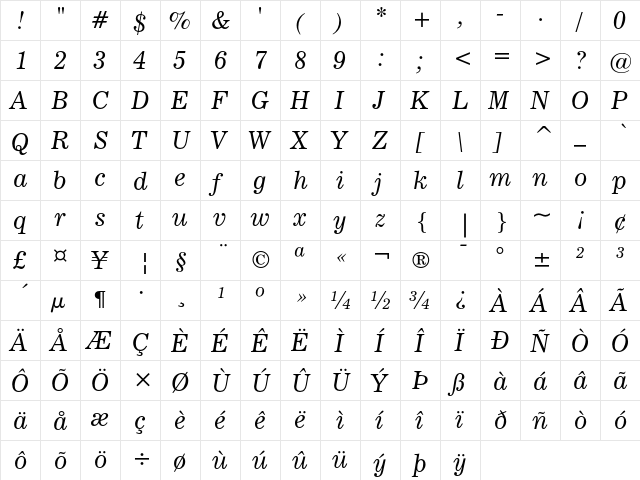
News 705 Italic
Design Context for News 705 Typeface
News 705 is a composed and adaptable typeface that performs quietly and consistently across a wide range of design contexts. The dynamic lean of this cut emphasises speed and emphasis in any layout.
Pro Tip: Try News 705 for annotation and caption copy alongside an upright companion — the contrast in angle creates a dynamic but ordered typographic system.